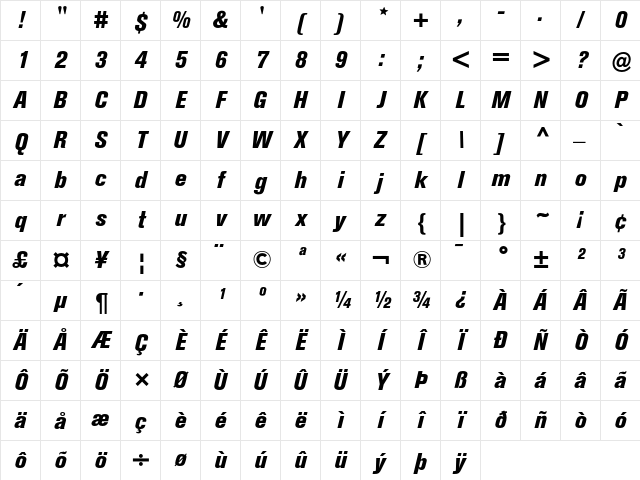
Berthold Akzidenz Grotesk BE Extra Bold Condensed Italic
Style: Extra Bold Condensed Italic
Design Context for Berthold Akzidenz Grotesk BE
Berthold Akzidenz Grotesk BE takes a clean, functional approach - its unadorned letterforms prioritise legibility and work reliably across screen and print environments. The slanted form adds forward momentum and visual energy. Its bold stroke weight gives it real presence on the page. Its narrow stance lets it pack a punch even in space-constrained designs.
Font Pairing: Use Berthold Akzidenz Grotesk BE for headlines alongside a lighter-weight sans or serif for body copy to establish clear visual hierarchy.
Pro Tip: Use Berthold Akzidenz Grotesk BE tightly set in headlines and banners - its condensed proportions make it ideal for maximum impact in minimum horizontal space.